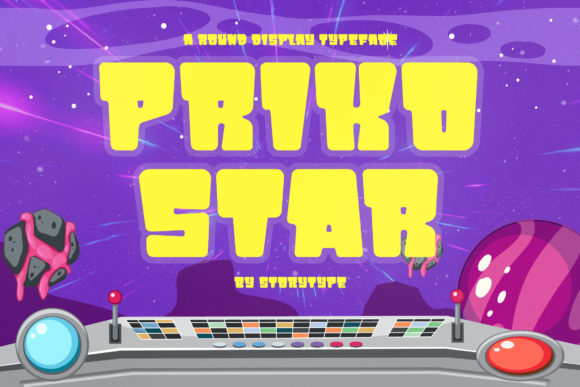
Prepare to be mesmerized by Priko Star, the enchanting display font that will captivate your designs with its playful and vibrant energy!
Step into a world of whimsical creativity with Priko Star, a font crafted to ignite joy and enchantment in every word. Its bold and chunky strokes dance across the page, creating a captivating visual spectacle that is sure to turn heads.
Imagine your wedding backdrop adorned with the elegant curves of Priko Star, transforming your special day into a fairy-tale extravaganza. Let your invitations shimmer with the font's playful charm, inviting guests to an unforgettable celebration.
Priko Star is the perfect companion for children's games, bringing a touch of magic and wonder to every playful moment. Its captivating strokes will spark their imaginations and create cherished memories that will last a lifetime.
Designers, rejoice! Priko Star's versatility knows no bounds. Its bold strokes lend themselves effortlessly to posters, book covers, and branding, adding a touch of whimsy and personality to any project.
Embrace the infectious joy of Priko Star and let your designs radiate with a playful and unforgettable charm. Every word crafted with this enchanting font becomes a captivating masterpiece, leaving an indelible mark on the hearts and minds of your audience.